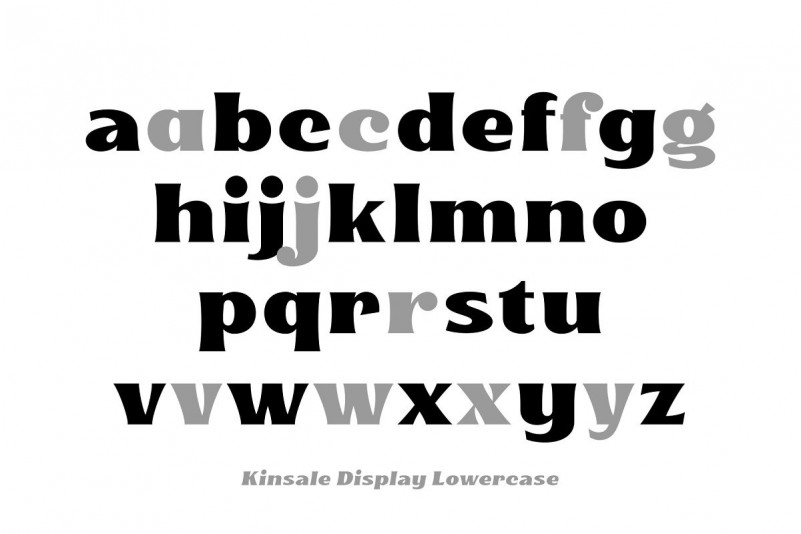
Kinsale Display Font
Say Hello Guy’s. Thank you for looking Kinsale Font. This is a unique sans serif font, designed to be combined with various fonts and can be applied to the design or branding of a project. Kinsale Display is a bold and strong looking display font that not only heavily inspired by the vintage/classic letterforms, but also some touch of modern twists and absurdities. Mouse-crafted with high attention to details; clean lines, sharp edges and tempting curves. Its wide and blocky letterforms make Kinsale is a great spacekiller. Suits best for title/headline, logo/logotype, packaging/label designs, etc.